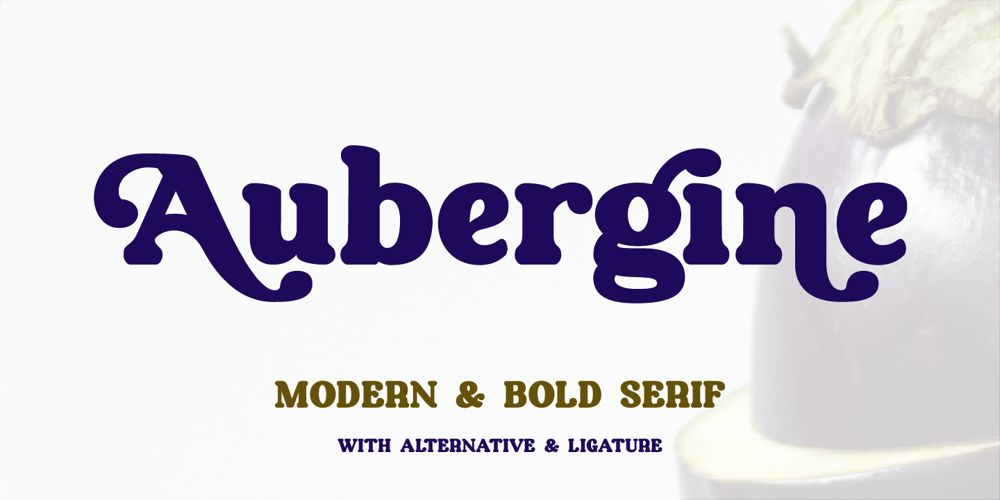
Aubergine Font Family was designed by Farida Kurniawan and published by Fridaytype. Aubergine contains 1 styles and family package options. Introducing, new bold serif, Aubergine – Modern Bold Serif is a bold serif font that has a refreshing feel. The existence of various alternatives using swash will create a modern and fresh feel that is suitable for your design. Perfect for cute quotes, packaging, branding, invitations, greeting cards and more.Features: Uppercase & Lowercase Numbers & punctuation Multilingual Ligature Alternative Thanks and have a wonderful day